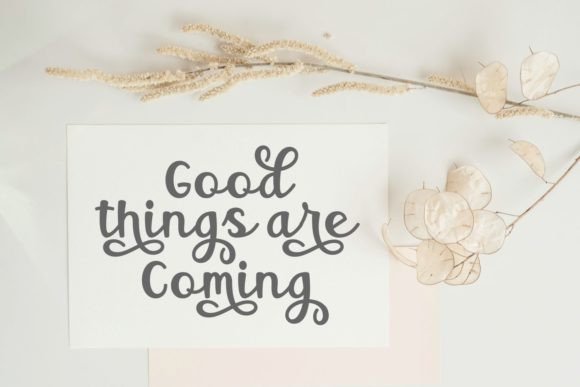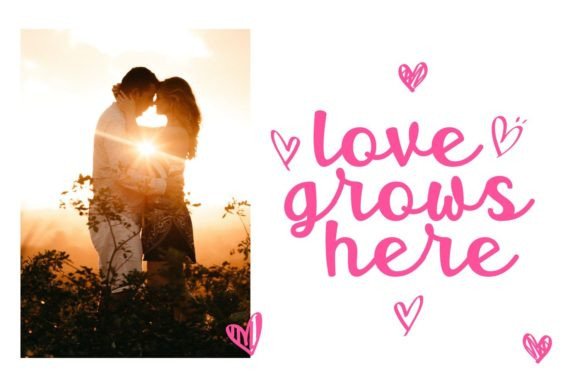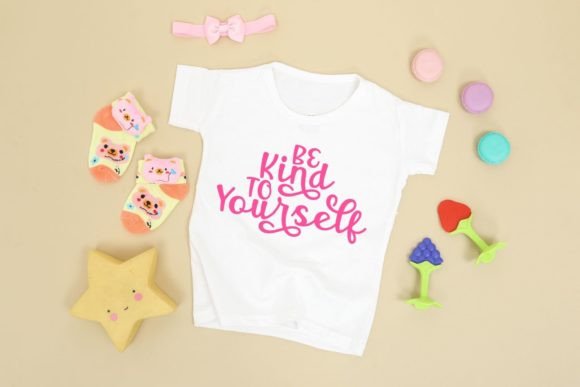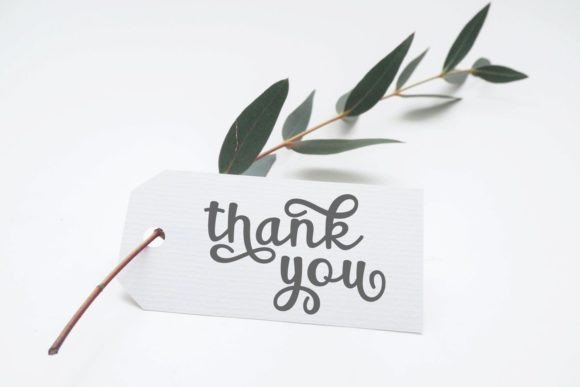
Introduction to Gahyaka Font
This exquisite handwritten font radiates elegance and refinement.
Gahyaka’s fluid lines and delicate curves make it ideal for adding sophistication to any project, such as wedding invitations, social media graphics, or branding materials This font is PUA encoded which means you can access all glyphs and swashes effortlessly.
Key Features of Gahyaka Font